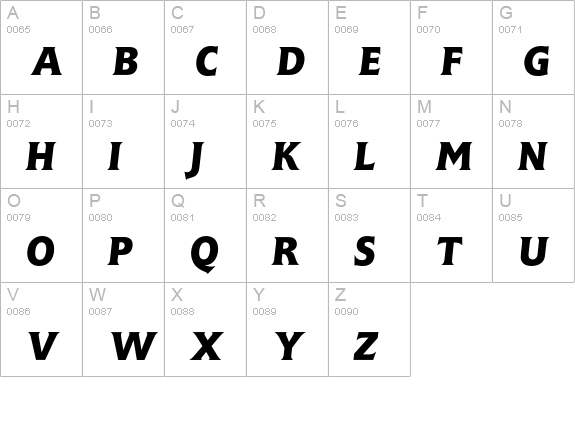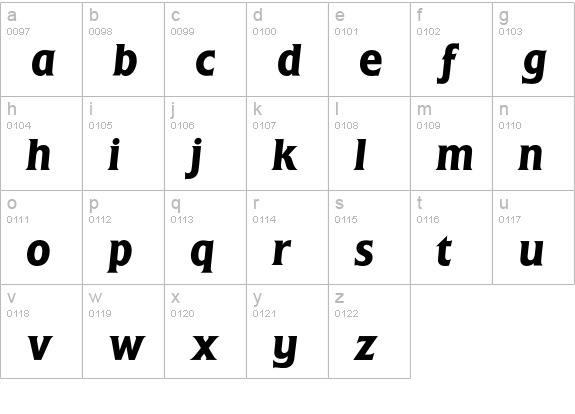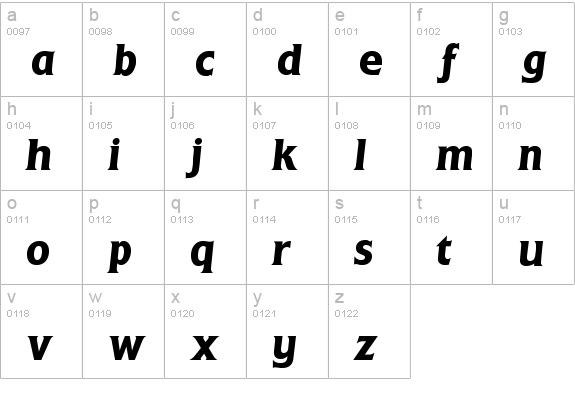
Flange BQ Medium Italic Font Details
Flange BQ Medium Italic is a balanced, medium-weight, italic variant in the Flange typeface family \xE2\x80\x94 well suited to sub-headlines, navigation, and balanced editorial work.
Flange BQ Medium Italic font is a sophisticated and elegant typeface designed for those looking to add a touch of modern flair to their projects. With its sleek lines and stylish slant, this font exudes a sense of professionalism and creativity. The medium weight strikes the perfect balance between boldness and readability, making it ideal for a variety of design applications. What sets Flange BQ Medium Italic font apart is that it is available for free download at FontsMarket.com. This means that you can easily access this high-quality font without any cost, allowing you to elevate your designs without breaking the bank. Whether you're working on branding materials, advertisements, or creative projects, Flange BQ Medium Italic font is sure to make a lasting impression with its unique and contemporary style.